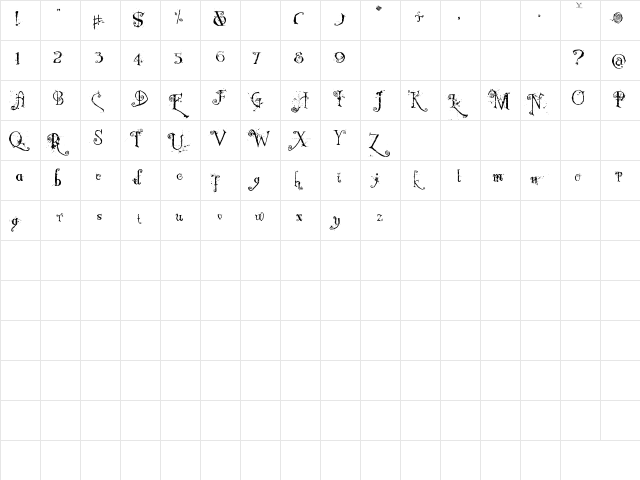
Nemo Nightmares Regular
Design Context for Nemo Nightmares Typeface
Nemo Nightmares is a composed and adaptable typeface that performs quietly and consistently across a wide range of design contexts.